Quotes have always held the power to move hearts, inspire action, and define identity. In design, a quote’s message doesn’t rely solely on words, it depends just as much on typography. The font you choose can change how a message feels, how it’s read, and how it’s remembered.
When used in branding, packaging, and social media, typography turns simple text into visual storytelling. Elegant scripts can make a skincare brand feel luxurious, while playful handwritten fonts make snack packaging fun and relatable. In short, the right font doesn’t just decorate, it defines personality.
This article highlights 20 of the best fonts for writing quotes, each paired with practical tips and brand-use recommendations. These fonts from Putracetol Studio are designed to bring depth, emotion, and professional polish to your creative projects.
Typography is more than an artistic choice, it’s a communication strategy. Every curve, serif, and brushstroke evokes a certain feeling. A bold font commands attention. A delicate script whispers elegance. A textured brush font shouts authenticity.
In branding and product design, quotes often appear on packaging, posters, or digital campaigns. Choosing the right font can:
Below is a curated list of 20 fonts ideal for quote-based projects, each with a unique style and suggested usage for branding and packaging.
Expressive and energetic, Formink brings handmade authenticity to your designs. Its brushstroke texture adds personality and power.
Best for: Motivational quotes, sports branding, creative product packaging.
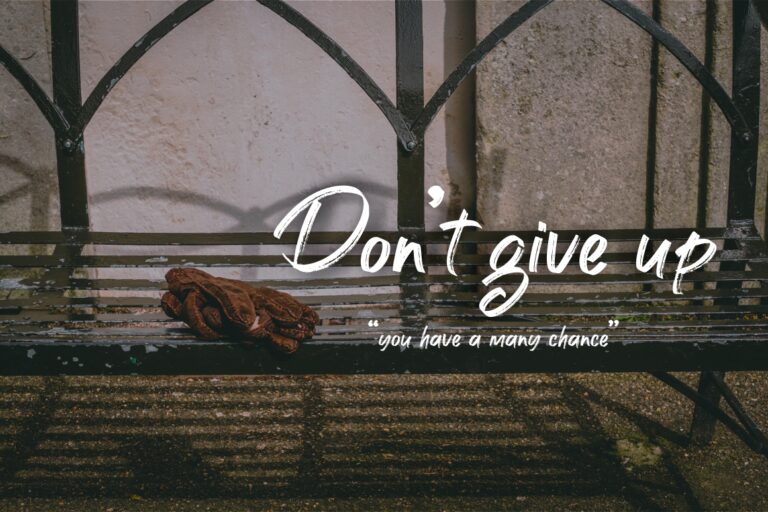
Wildfox is dynamic and wild at heart, with irregular lines and bold motion. It’s perfect for brands that embrace freedom and creativity.
Best for: Adventure brands, lifestyle campaigns, and outdoor product quotes.
Playful and romantic, Sweety Lover captures charm in every curve. Its handwritten style adds warmth and intimacy.
Best for: Valentine’s campaigns, greeting cards, lifestyle and fashion packaging.
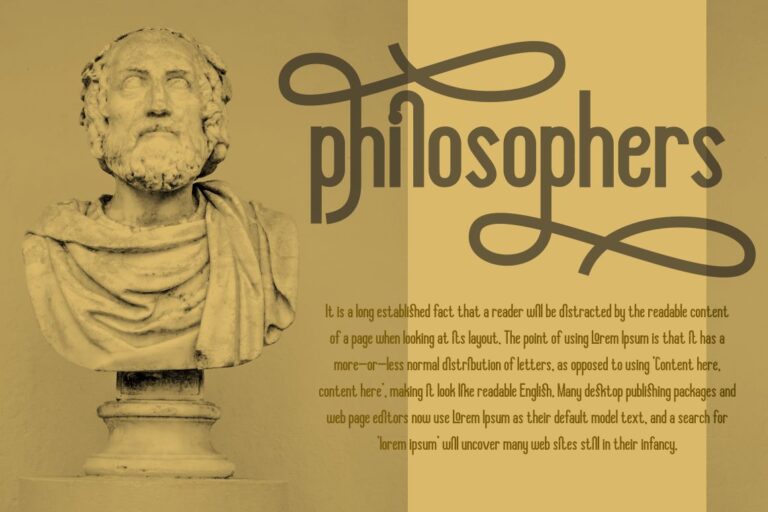
Elegant yet approachable, Roshmary offers a classic handwritten flow that pairs beautifully with modern layouts.
Best for: Beauty brands, minimalist packaging, and inspirational quotes.
A sophisticated serif font with clean lines and strong presence. Holian exudes confidence and timeless charm.
Best for: High-end branding, editorial quotes, and product labels.
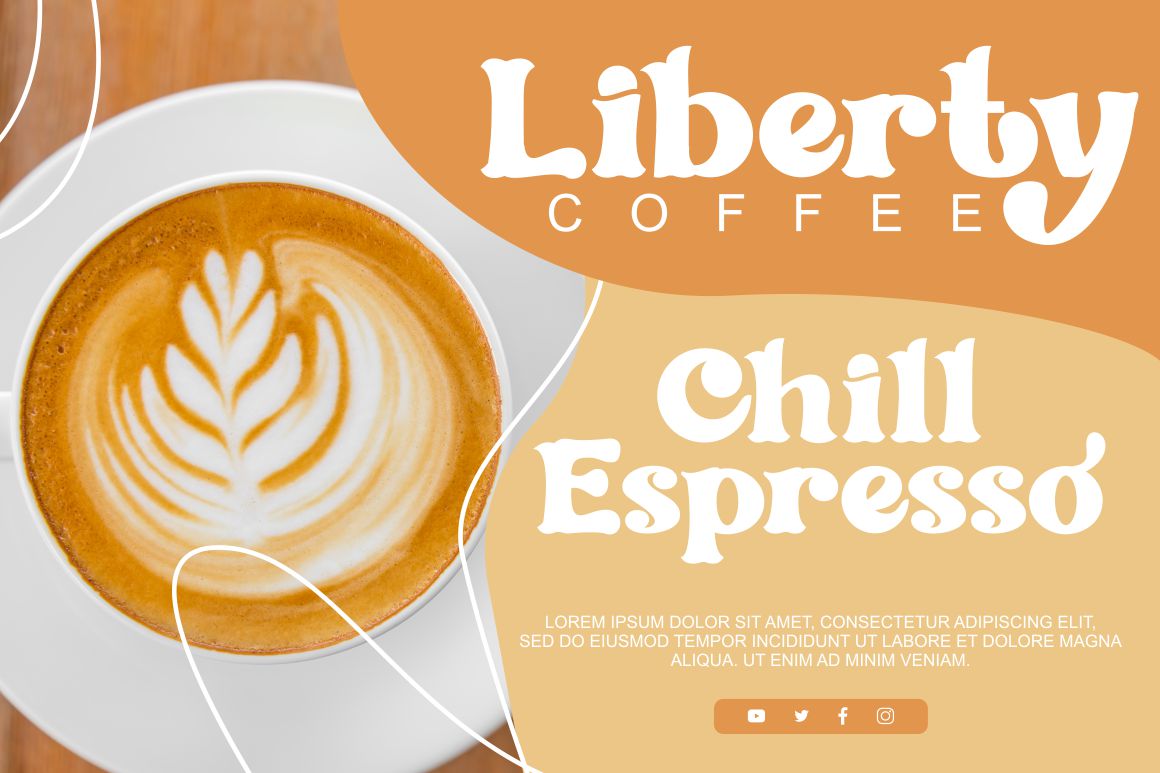
Rustic and bold, this vintage display font combines handcrafted style with retro nostalgia.
Best for: Coffee brands, brewery labels, or motivational wall art.
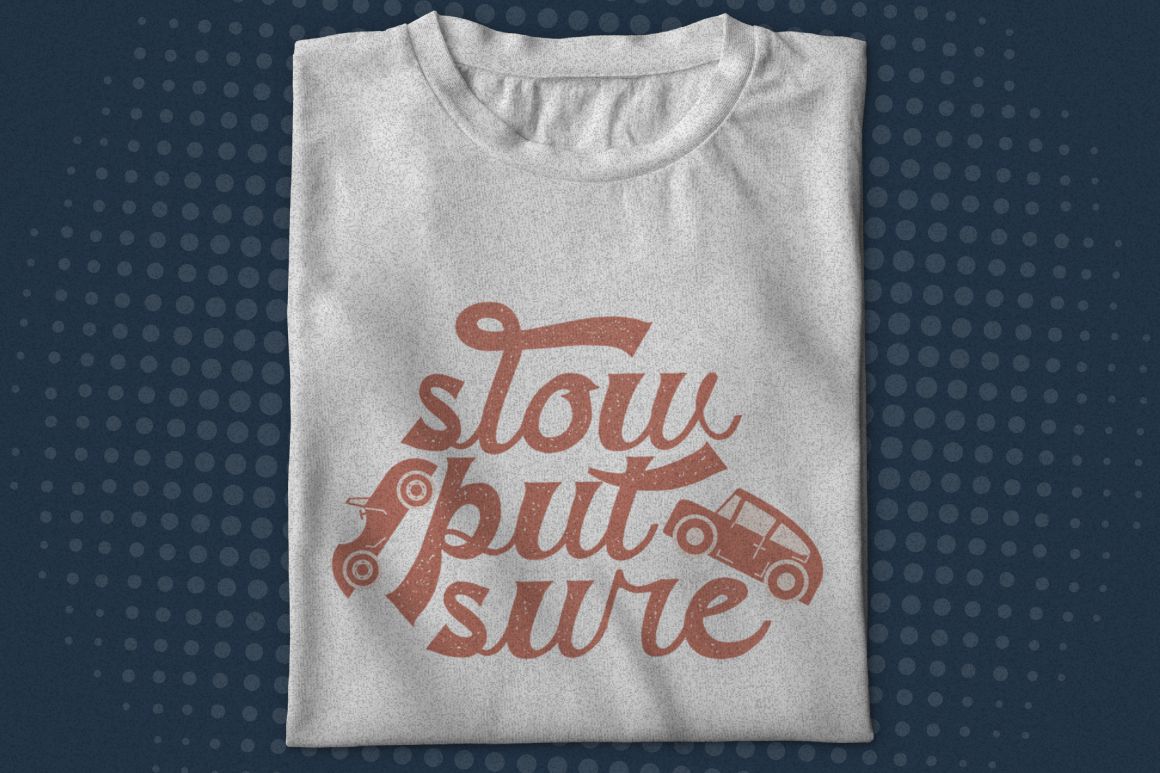
Rough-edged and bold, The Bad Vintage delivers a vintage punch with authentic character.
Best for: Apparel branding, retro packaging, and statement quotes.
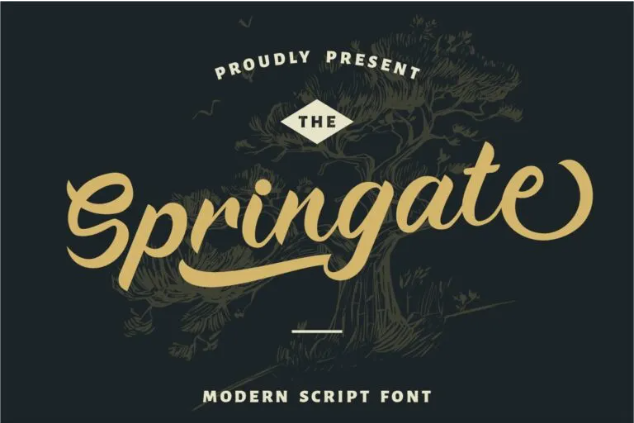
Soft and elegant with gentle flourishes, Springate radiates positivity and creativity.
Best for: Wellness products, skincare brands, and inspirational messaging.
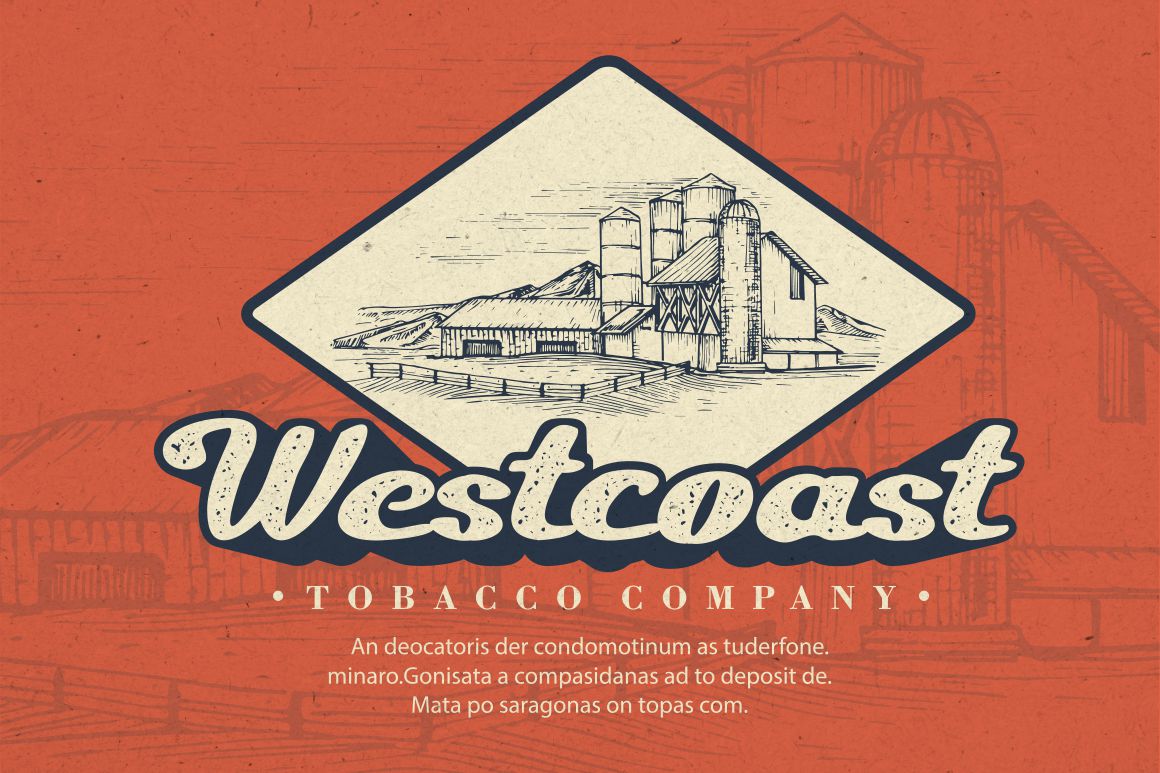
A classic retro-inspired typeface with personality and grit, perfect for nostalgic vibes.
Best for: Beverage branding, artisanal packaging, or retro campaign posters.
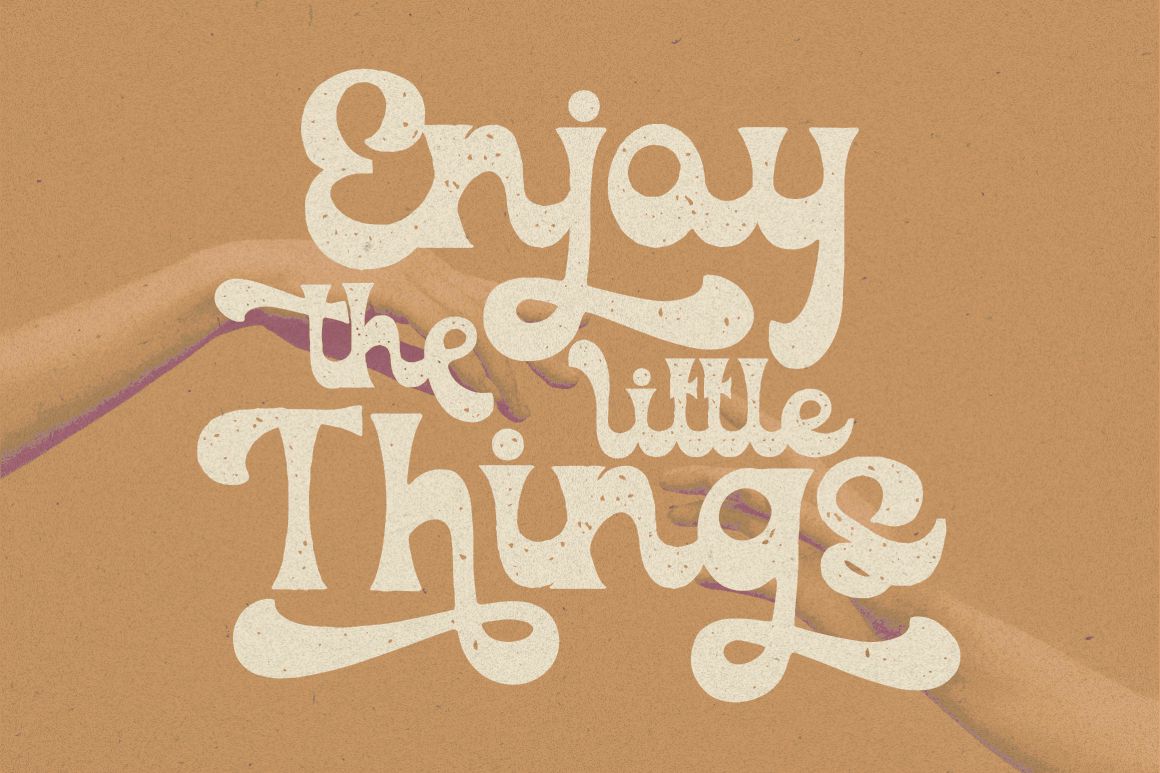
Flowing and timeless, this script font brings handwritten nostalgia to design.
Best for: Lifestyle brands, creative stationery, or emotional quotes.
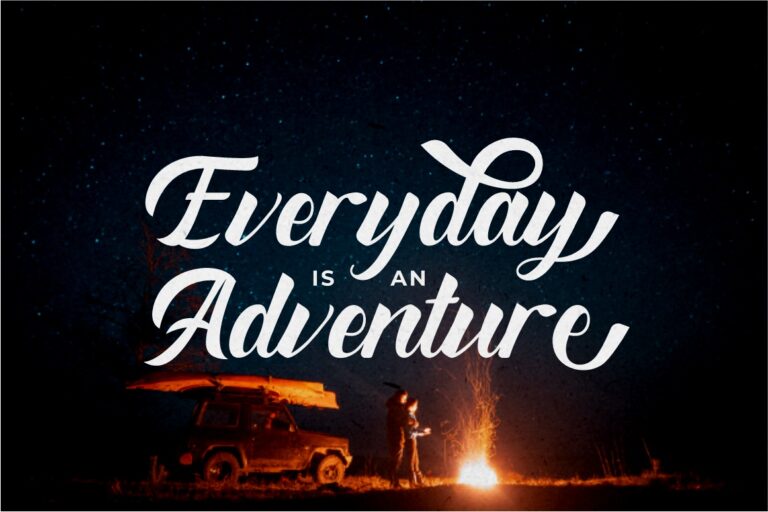
Strong, masculine, and structured, The Knight delivers authority and power.
Best for: Men’s product lines, luxury packaging, or bold motivational quotes.
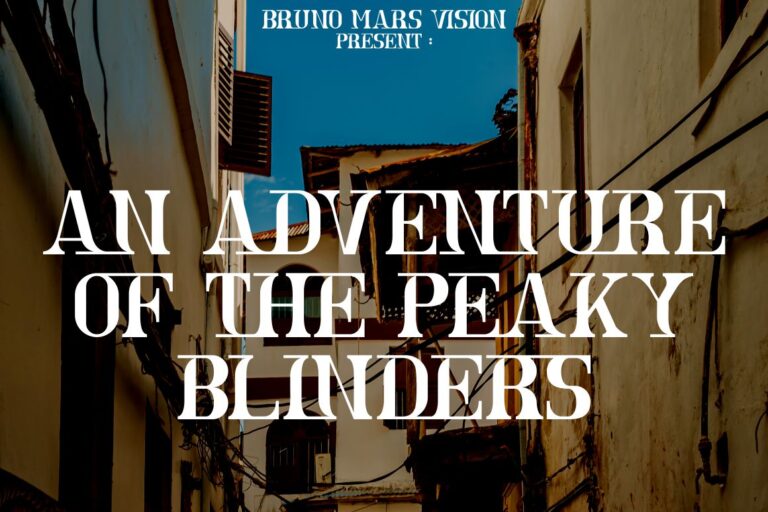
A dazzling script font with a touch of glamour—perfect for stylish and elegant designs.
Best for: Luxury branding, fashion labels, or quote-driven marketing visuals.
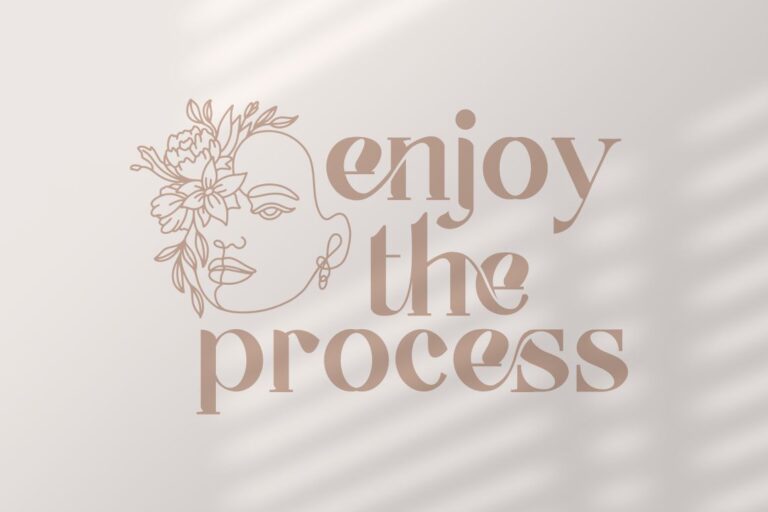
Modern, chic, and versatile, Chiralla adds creative flair to any quote composition.
Best for: Trendy lifestyle brands, fashion, or minimalist poster quotes.
With soft geometric lines and natural flow, Midocean feels calm and confident.
Best for: Travel quotes, organic packaging, or lifestyle branding.
A groovy display font that celebrates 70s nostalgia and positive vibes.
Best for: Snack packaging, event posters, and summer campaign designs.
Whimsical and fluid, Beautiful Magic is perfect for emotional or imaginative designs.
Best for: Quote art, greeting cards, and creative packaging.
Fresh and vibrant, this display font captures the warmth of summer and island aesthetics.
Best for: Beverage branding, tropical packaging, and fun social media posts.
Cute, bold, and bouncy, Child Krafter adds joy to every design.
Best for: Kids’ product packaging, playful quotes, or educational brands.
Sweet and bubbly, Double Pineapple blends fun typography with tropical flair.
Best for: Food packaging, candy brands, and youthful product campaigns.
A rustic handwritten font that feels organic, warm, and natural.
Best for: Eco-friendly packaging, handmade products, and farmer’s market branding.
Because great design isn’t just about what you say, it’s about how beautifully you make people feel when they read it.